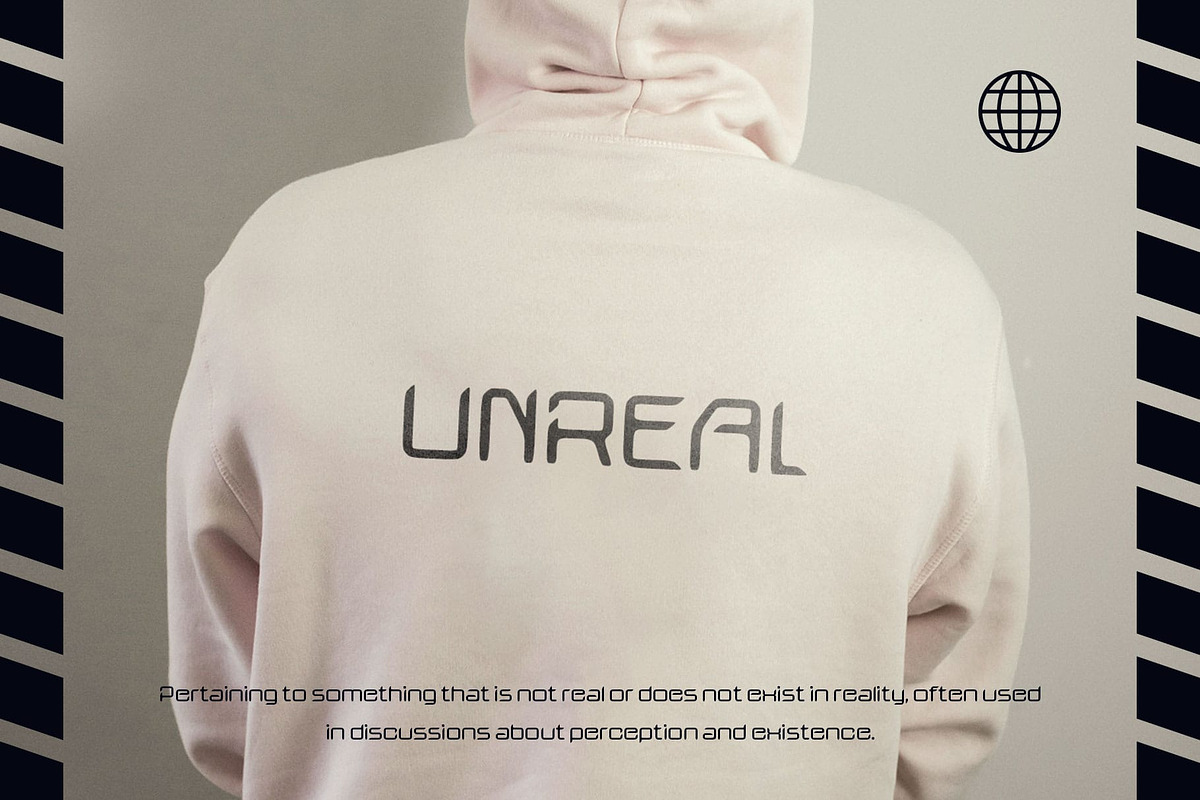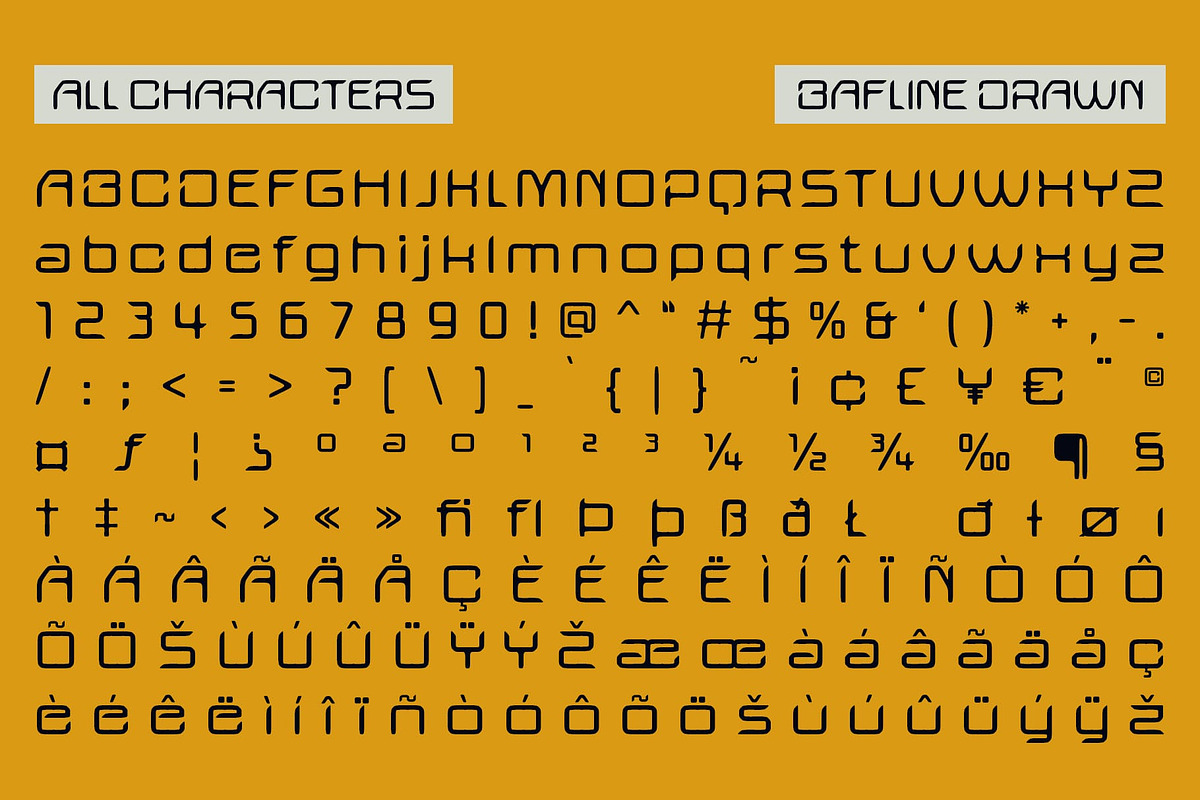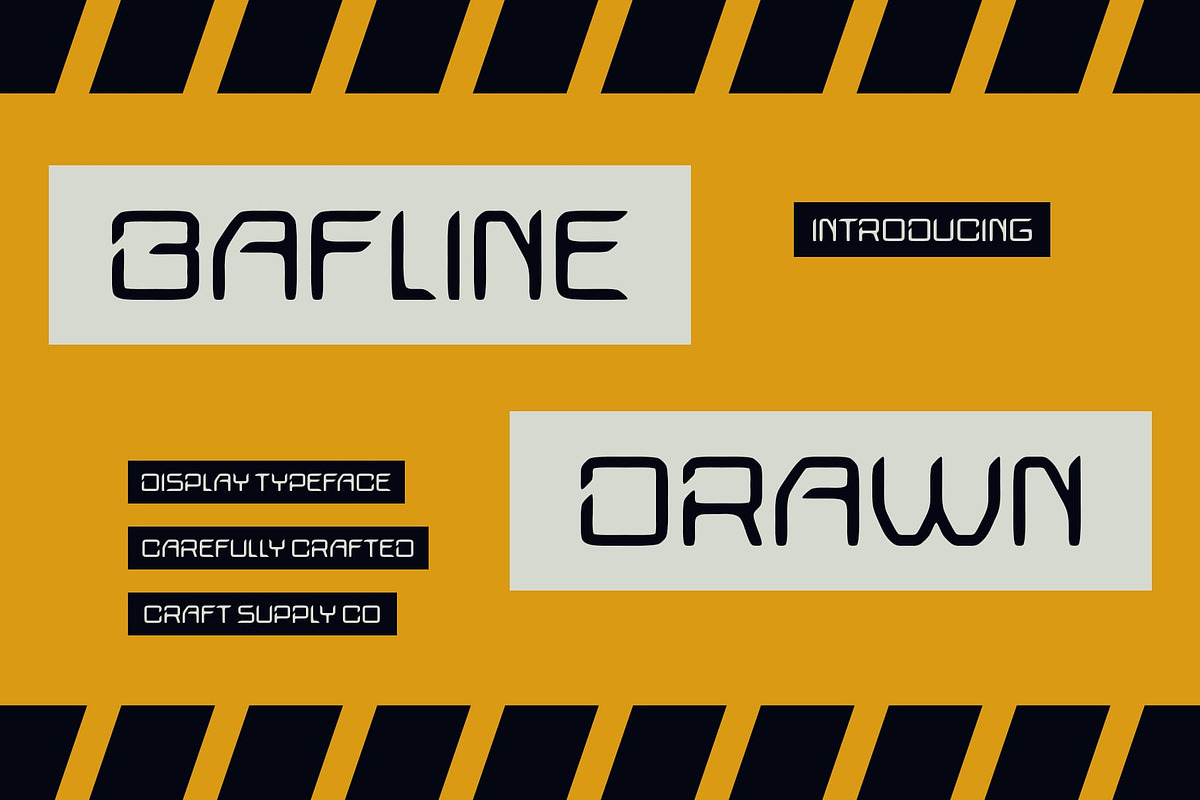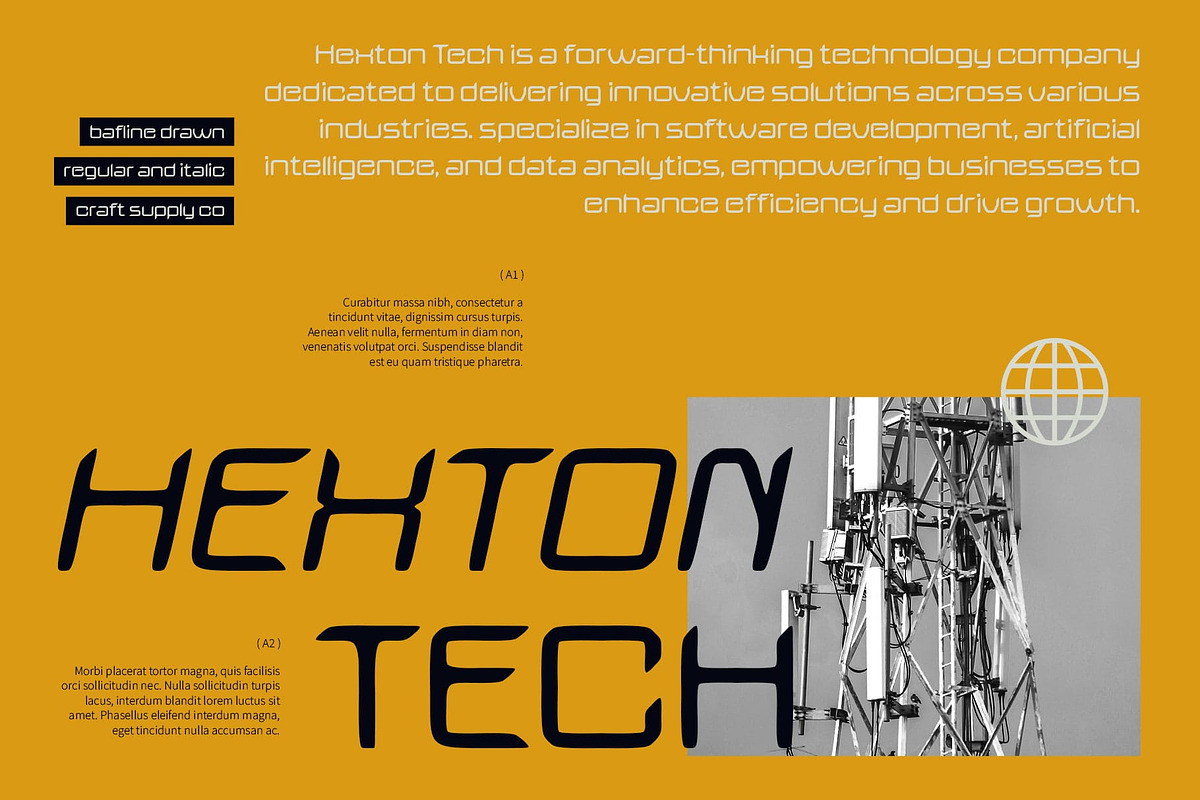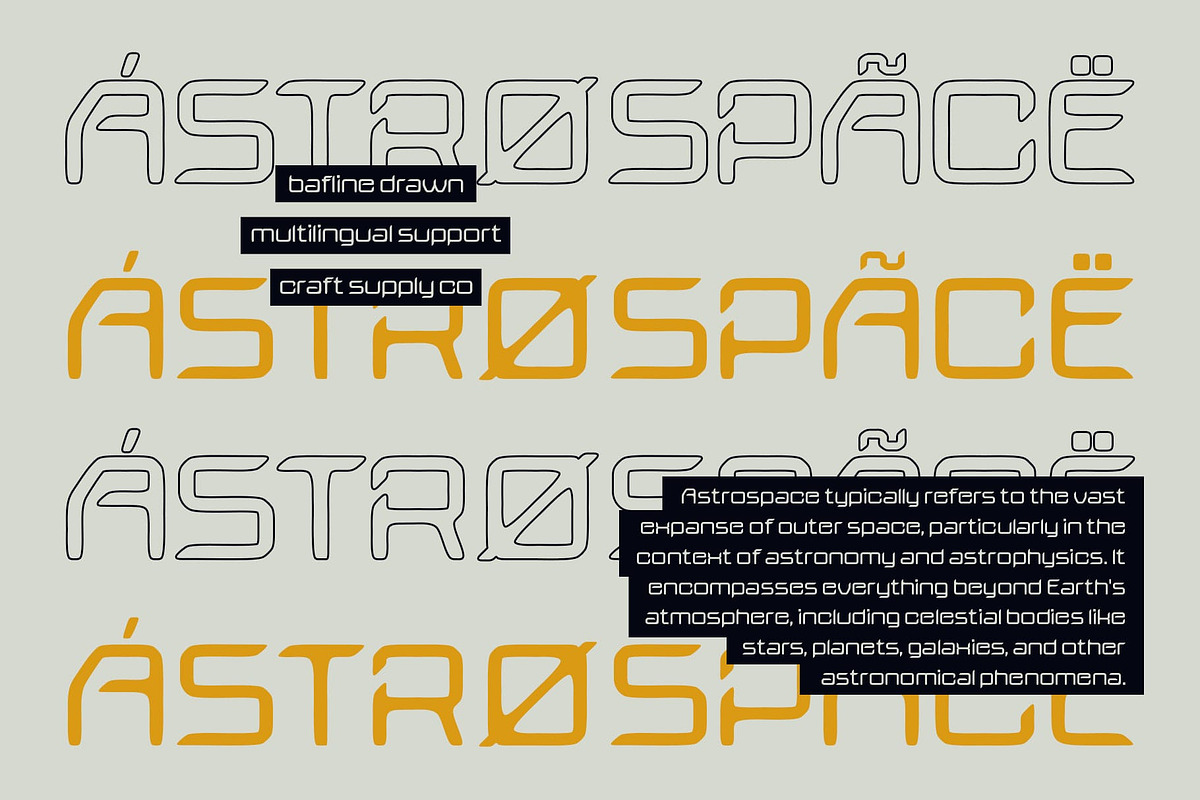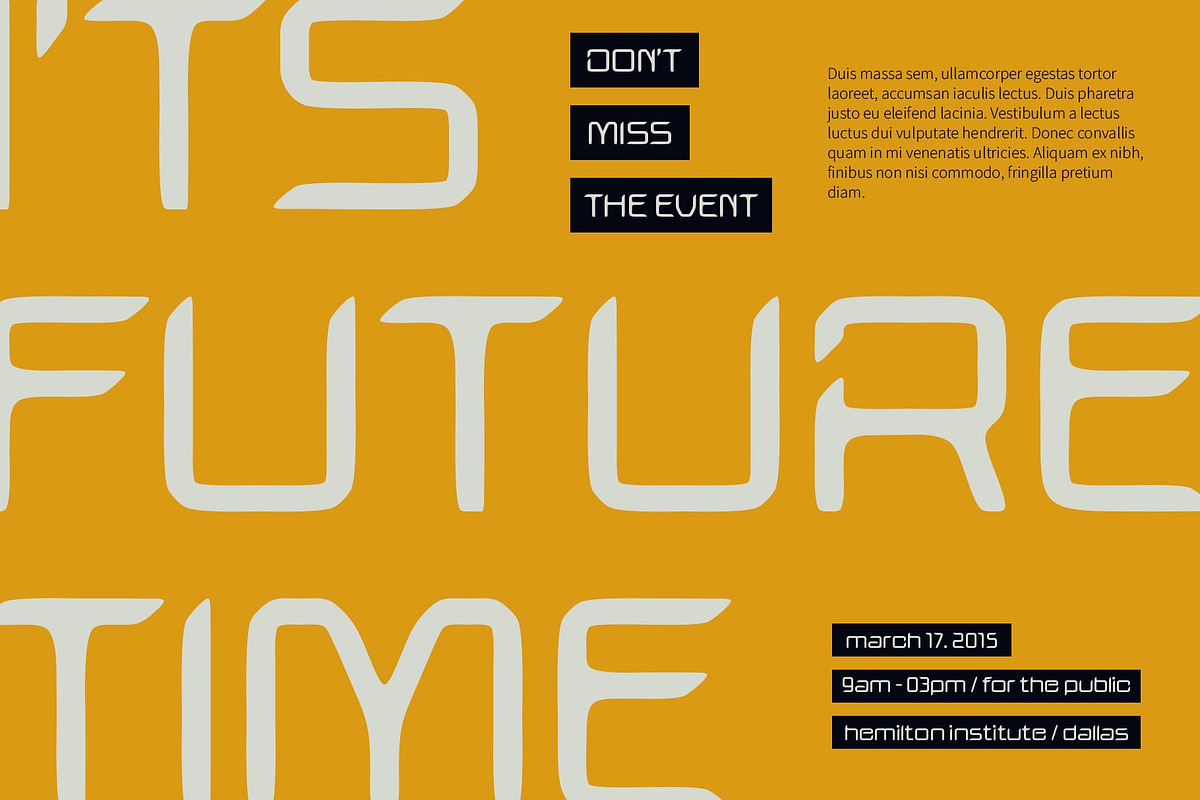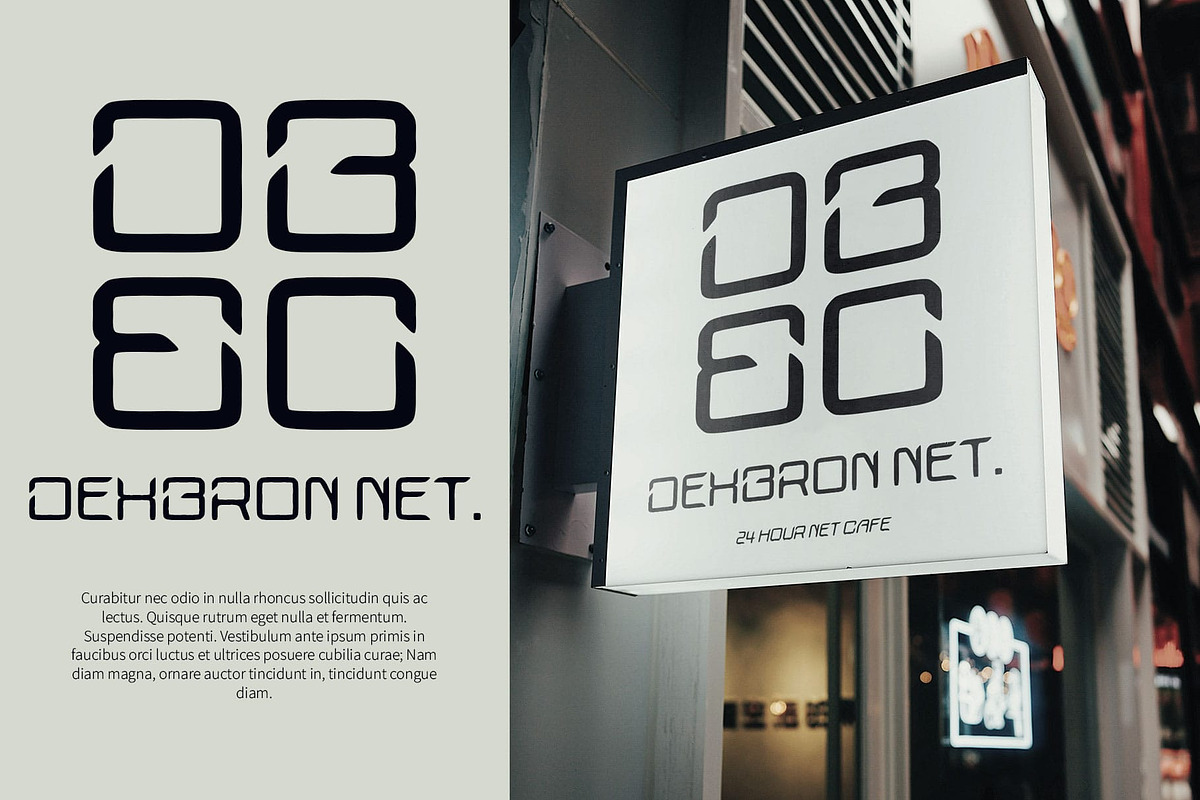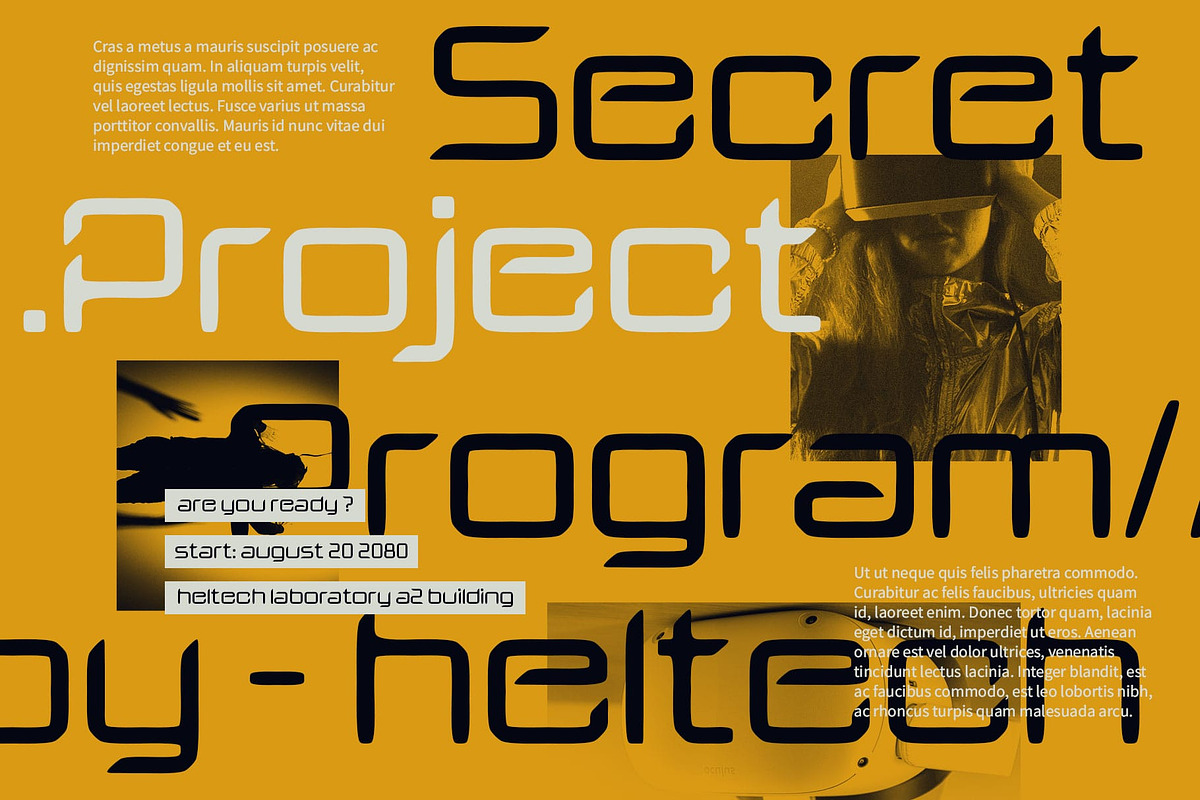
Bafline Drawn
Bafline Drawn Font: Where Modern Technology Meets Artistic Flair
Modern Display Sans Serif with a Tech-Inspired Design Bafline Drawn is a modern display sans serif font that elegantly fuses a tech and futuristic design with a unique drawn effect. This innovative font features clean lines and geometric shapes, embodying an aesthetic that reflects cutting-edge technology and forward-thinking creativity. Its sleek and contemporary appearance makes it a perfect choice for projects that seek to convey a sense of modernity and innovation.
Artistic Drawn Effect for Unique Appeal What truly sets Bafline Drawn apart is its captivating drawn effect, which introduces an artistic touch that enhances the font’s overall depth and uniqueness. This effect creates a striking contrast between the font’s futuristic qualities and the organic, handcrafted elements, resulting in a design that feels both sophisticated and creatively inspired. The interplay between these two aspects creates a visually engaging experience that captures the viewer’s attention.
Versatile for Creative Applications Bafline Drawn is incredibly versatile, making it suitable for a wide range of creative applications. Whether used in branding, posters, or web design, this font effectively emphasizes modernity while allowing for creative expression. Its striking and dynamic appearance makes it an excellent choice for projects that aim to stand out, ensuring that your message resonates with audiences.